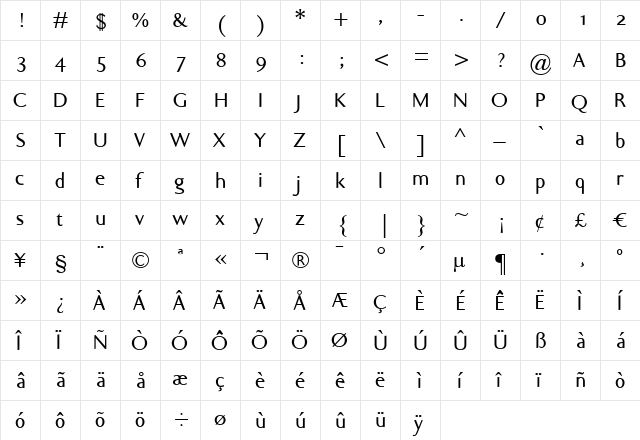
Ela Sans Plain Regular
Design Context for Ela Sans Plain Typeface
Ela Sans Plain is a composed and adaptable typeface that performs quietly and consistently across a wide range of design contexts.
Pro Tip: Use Ela Sans Plain in both headline and body roles to test its range before committing to a single application.